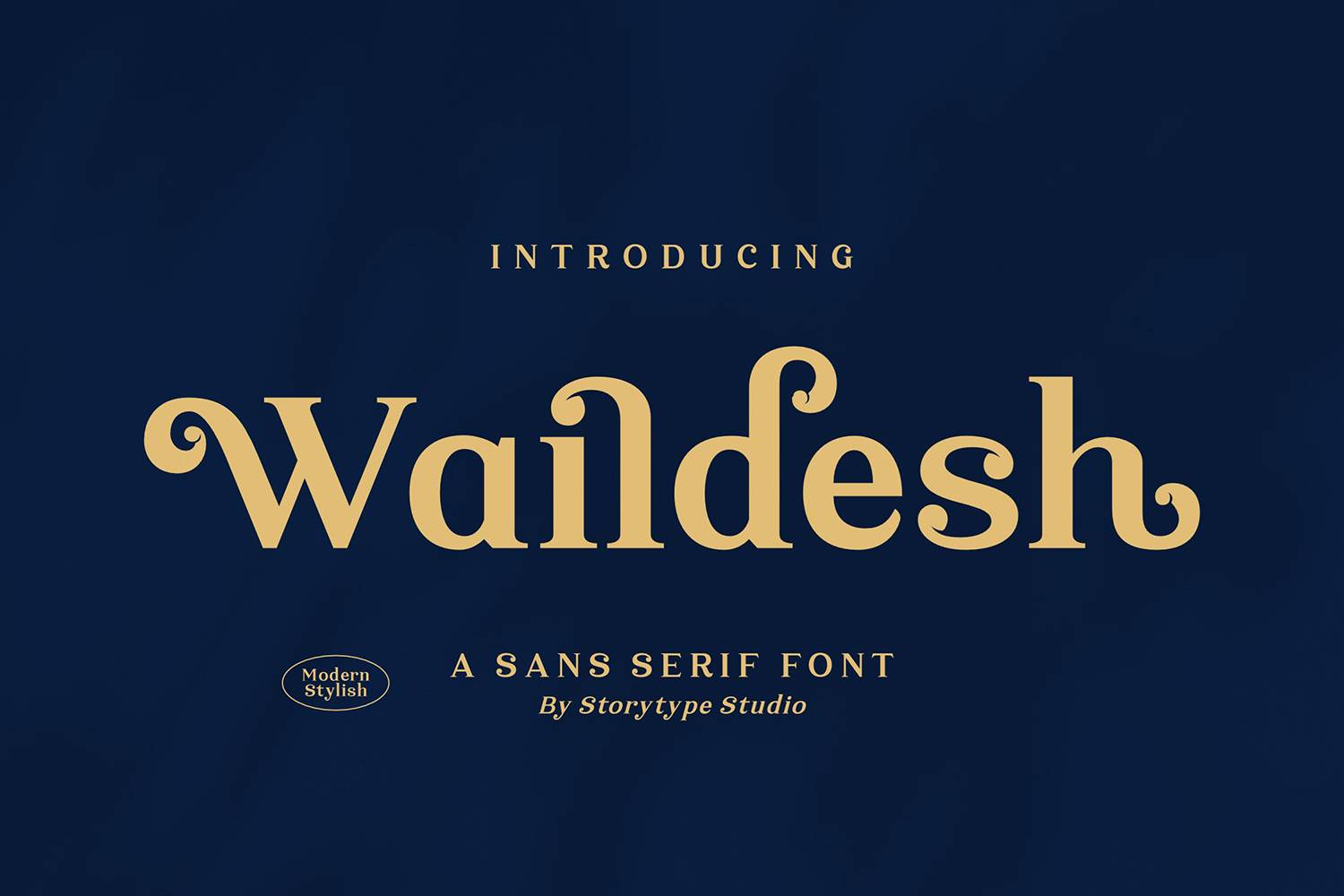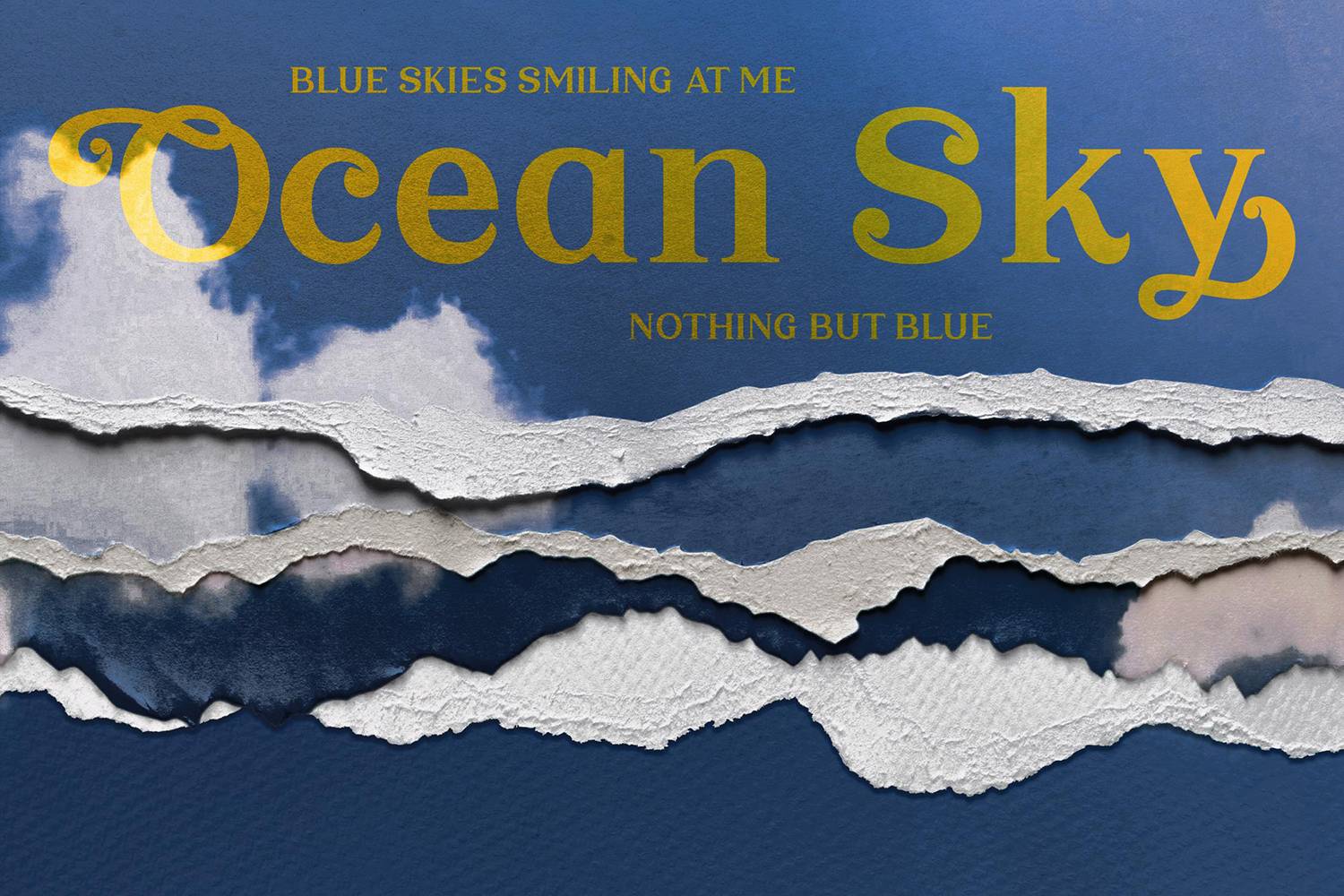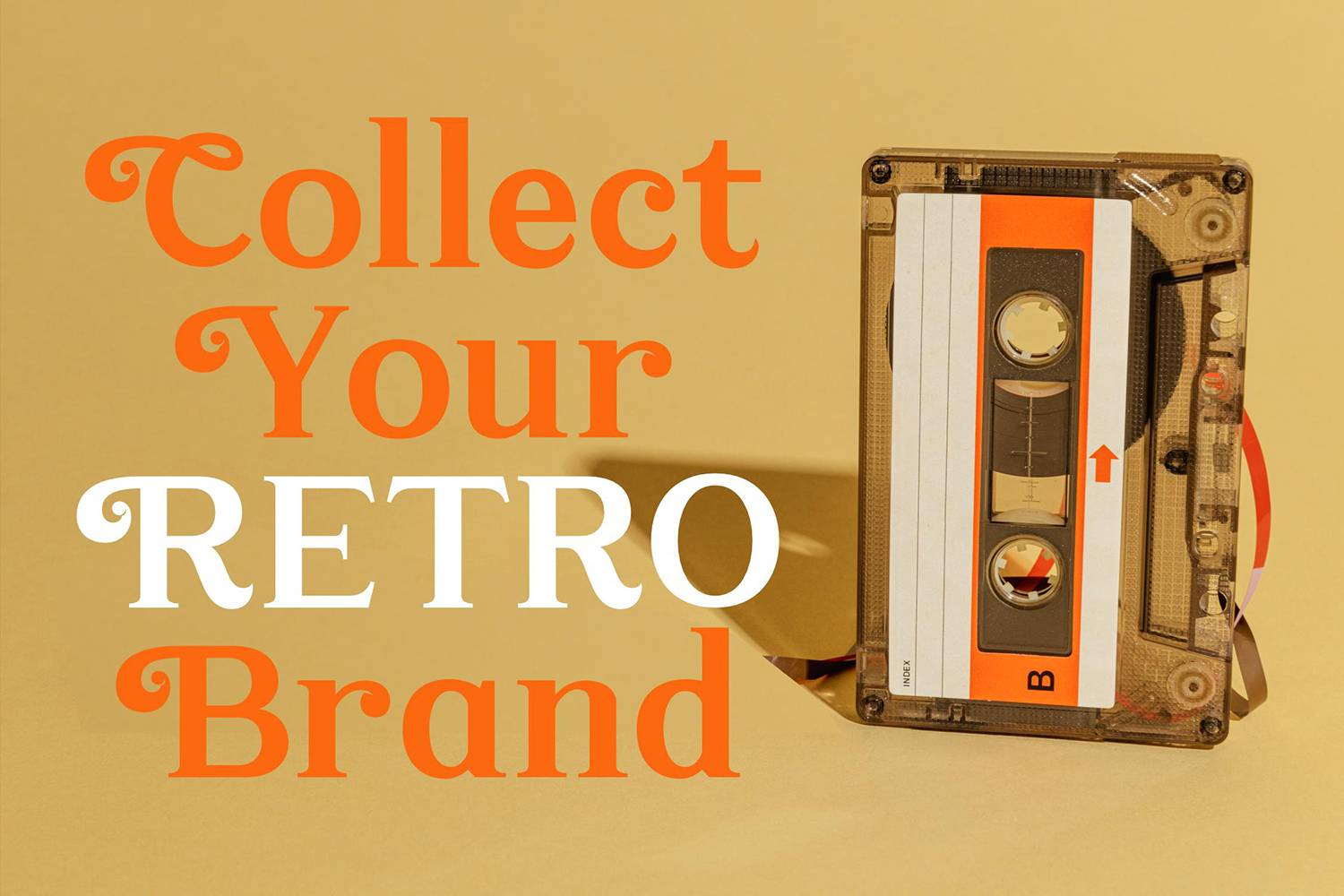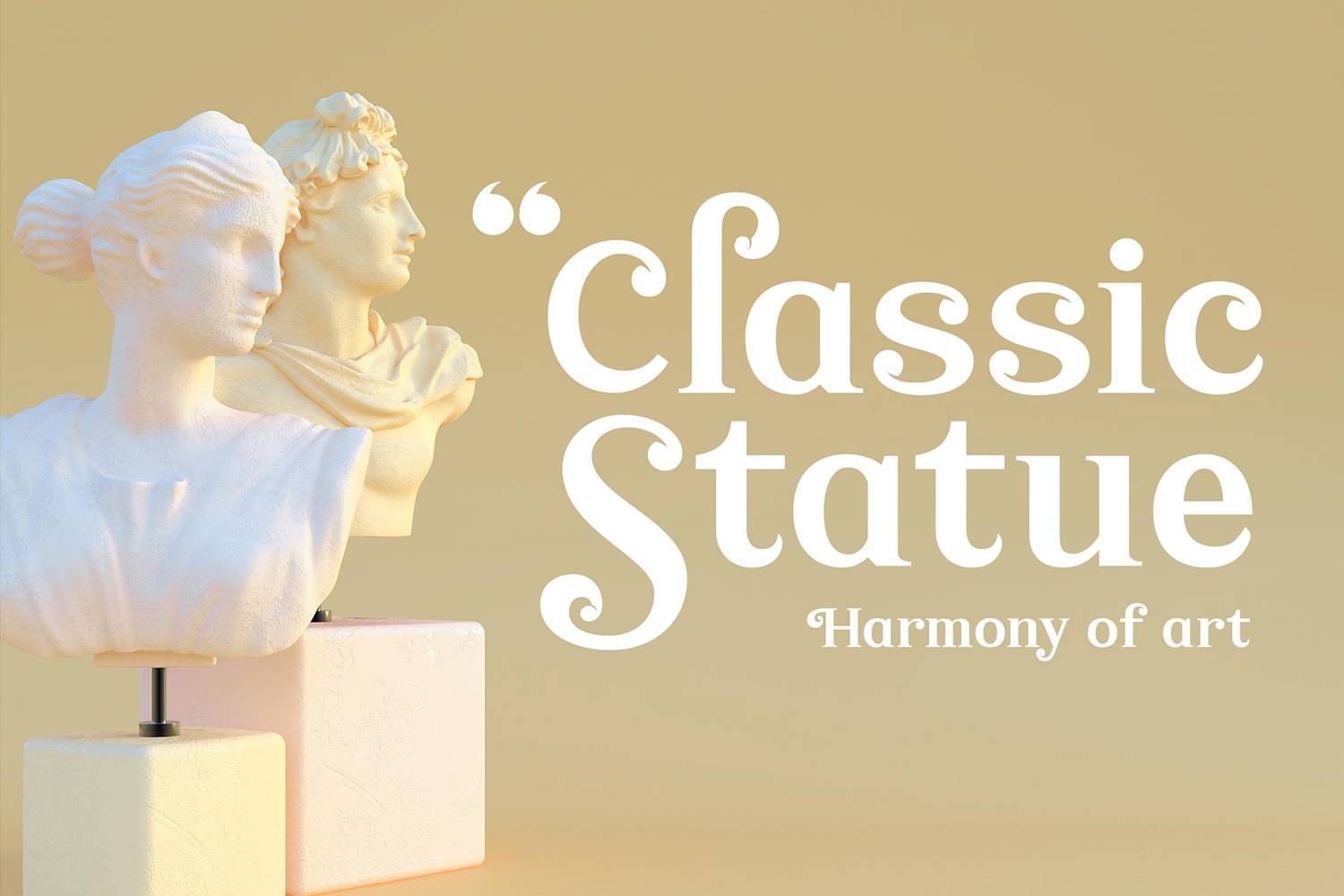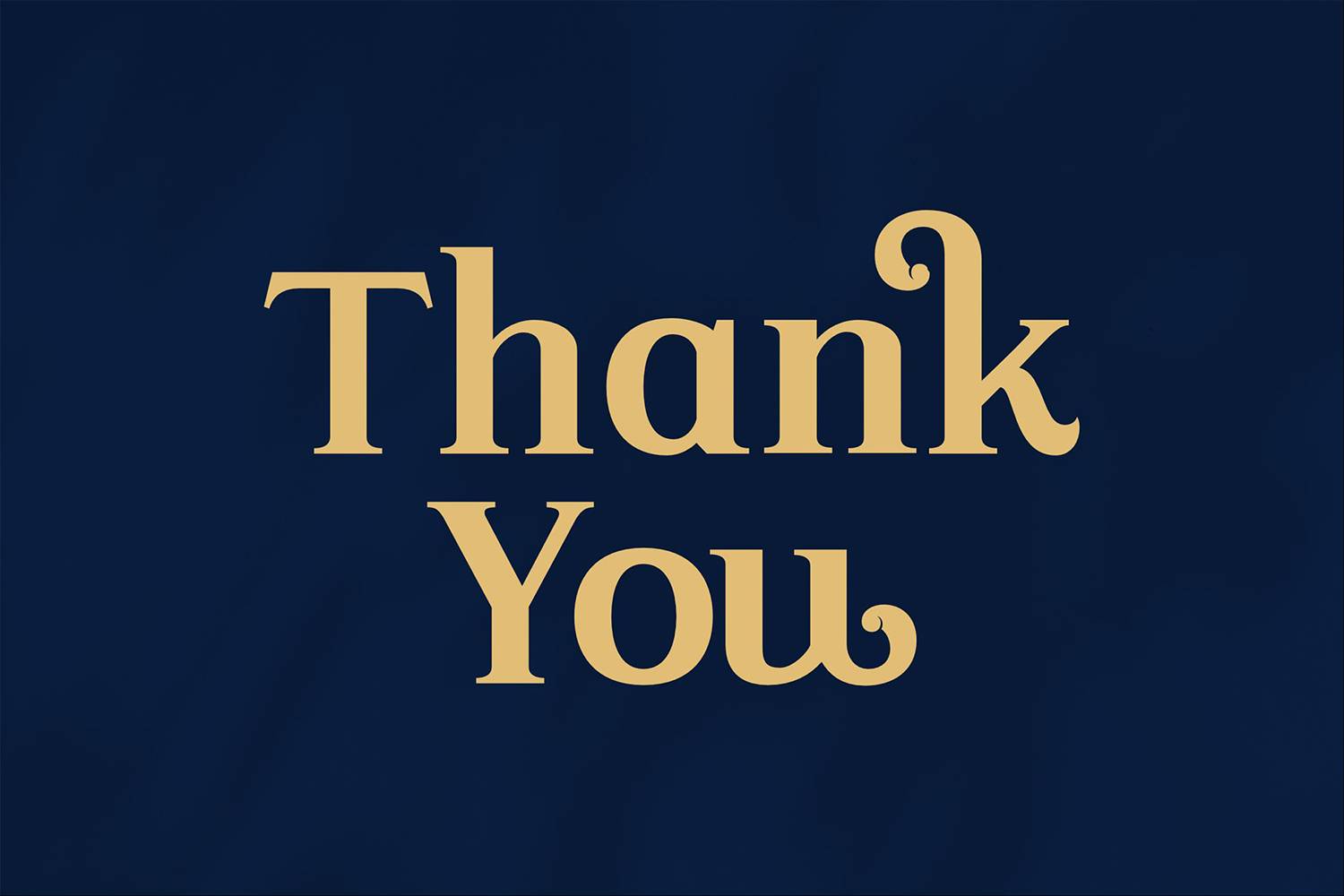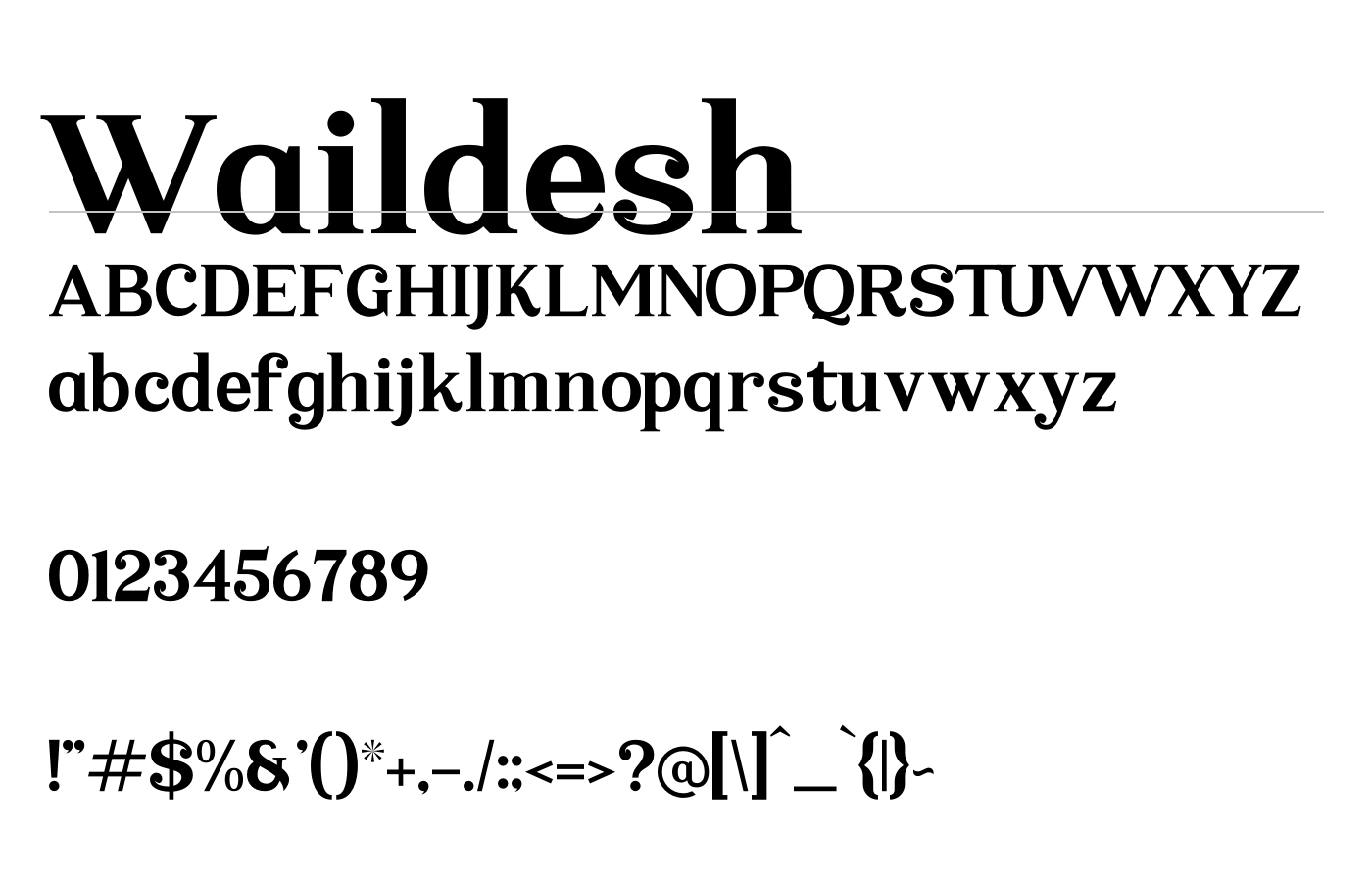
Waildesh is a classic serif font with a strong, elegant appearance characterized by its moderate contrast between thick and thin strokes and refined, bracketed serifs. Its traditional double-story forms and carefully crafted details give it a formal yet approachable feel, making it ideal for editorial design, branding, and sophisticated headlines. This font balances readability with style, lending a timeless, professional tone to luxury packaging, magazines, and corporate identities.
Waildesh Font
About Waildesh Font